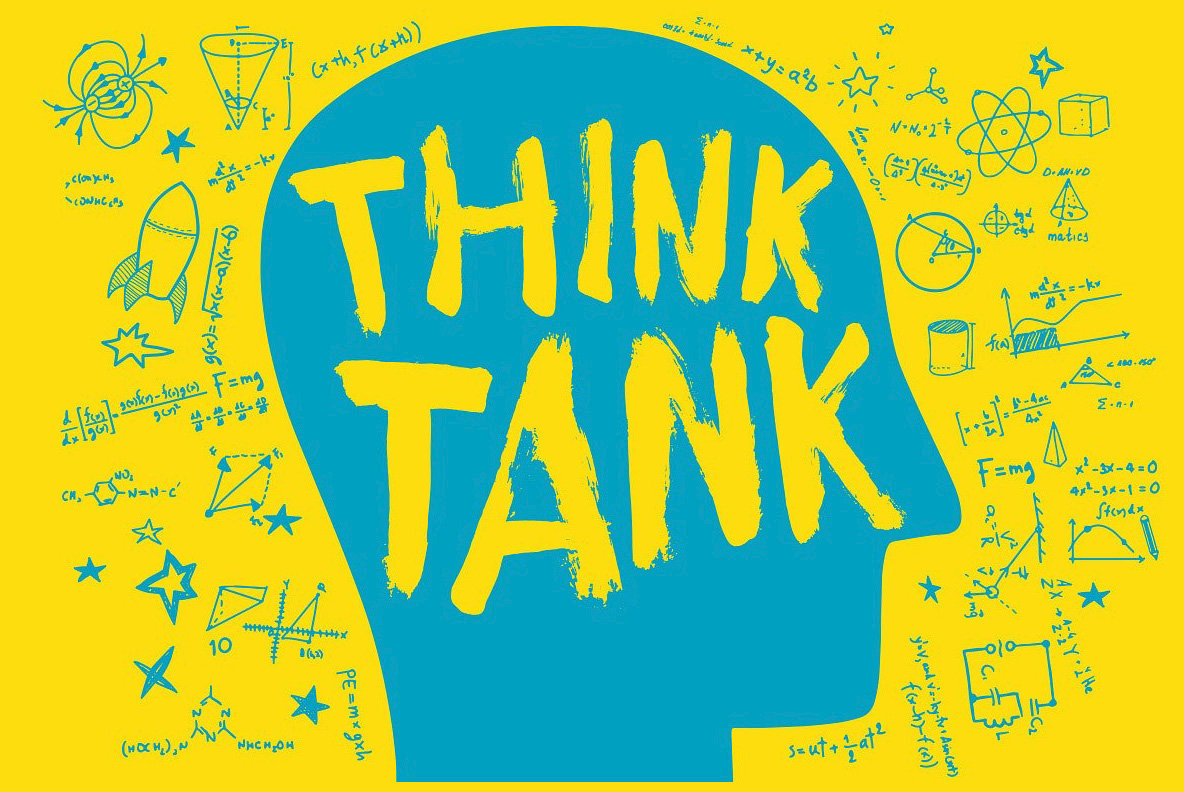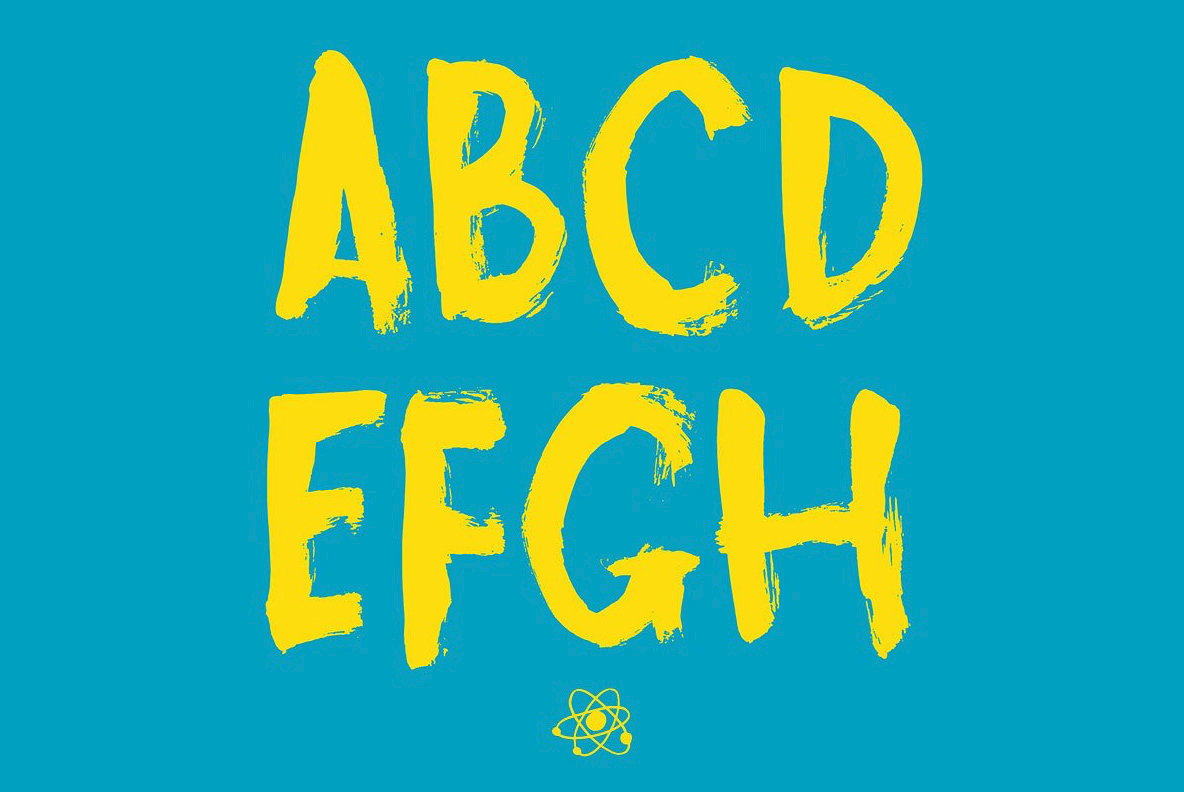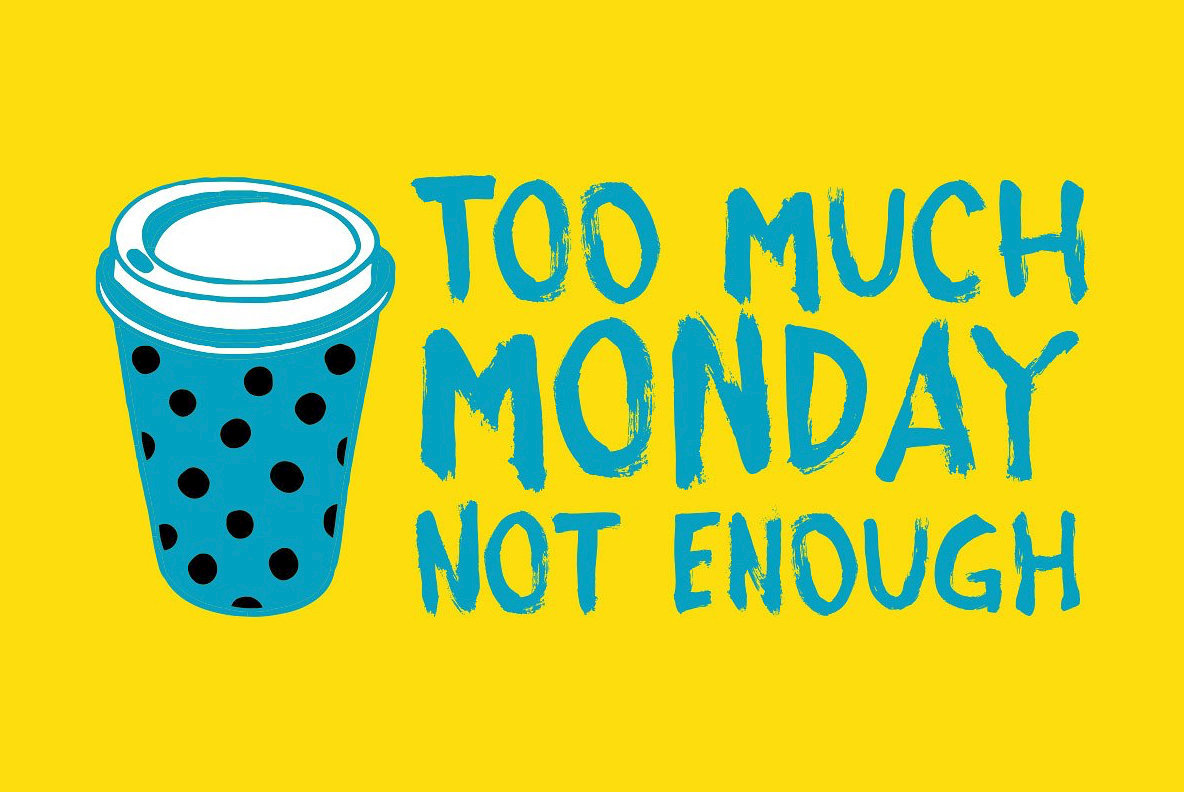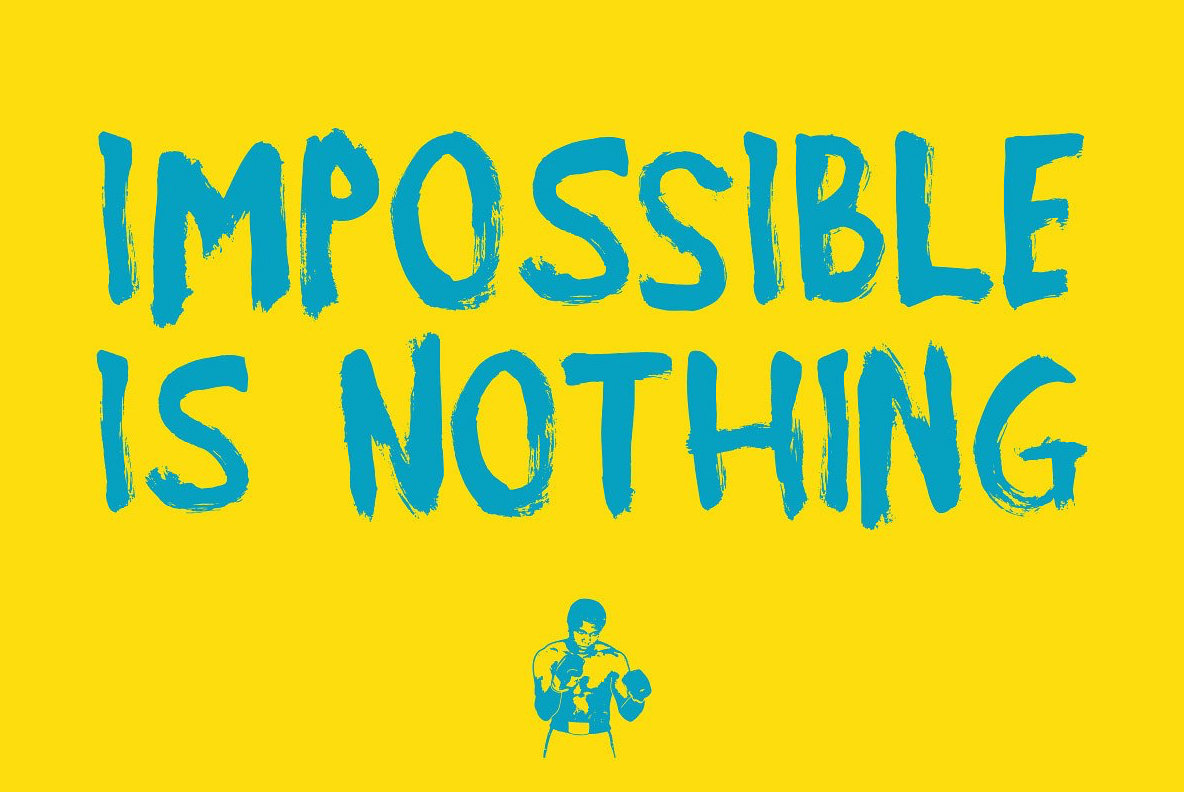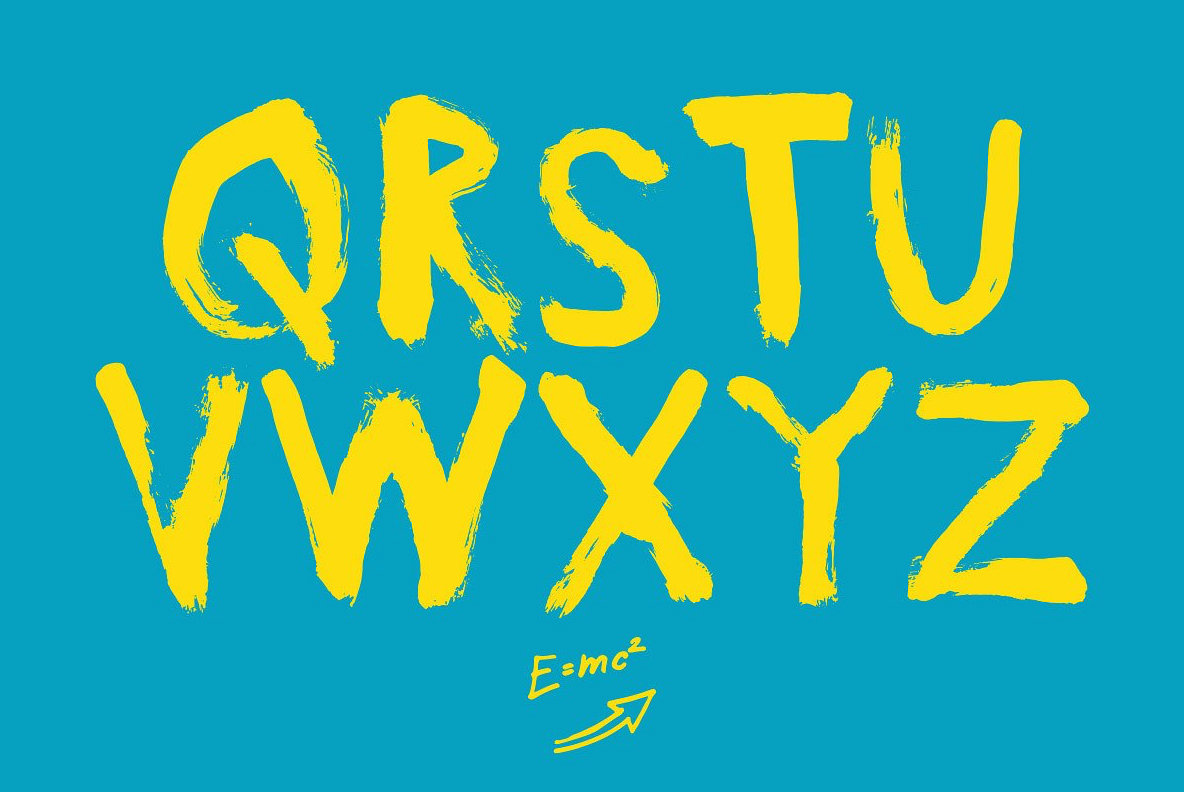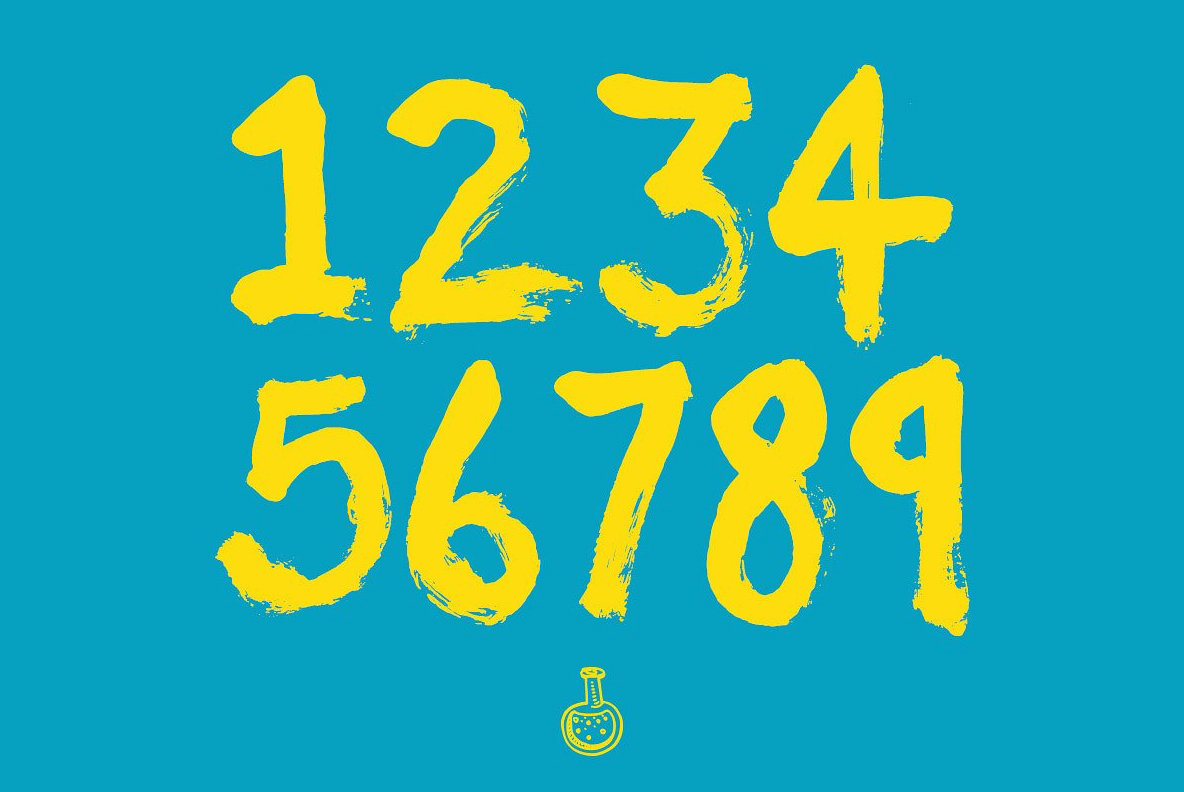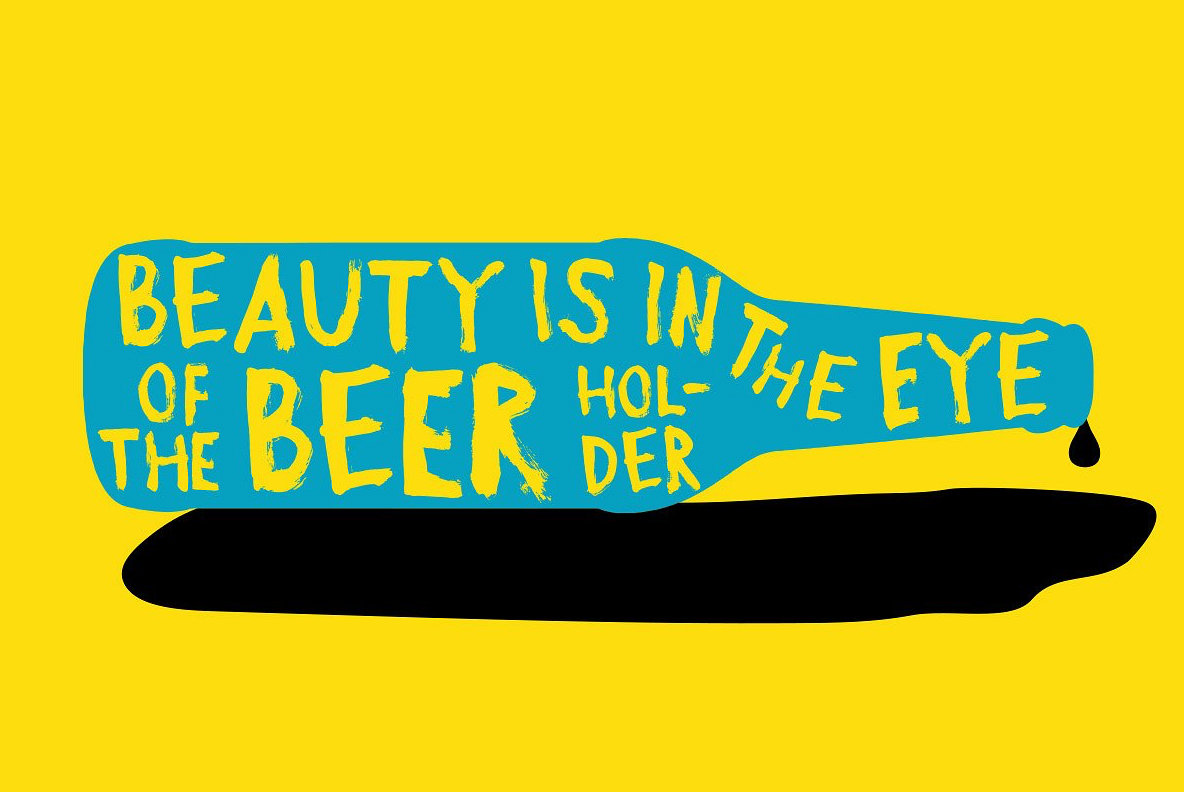
Atomic Dustbin Font
Atomic Dustbin a grungy handmade brush display font. It was created with a thick dry brush, black ink and paper. I was trying to get that dirty brush stroke look and feel, with all the lovely detail that can produce.
I named the font after the 90's indie band Neds Atomic Dustbin. Who got the name from an episode of the Goon show.
It's a unicase font so it has no lowercase glyphs. That makes it perfect for bold and heavy headlines. It's messy so it's going to give you that graffiti/urban style.
Opentype Alternatives
Atomic Dustbin has 3 alternatives for each letter and 2 for each number and a few extra punctuation marks.
Using OpenType contextual alternatives that cycle through the glyphs and to give you a more random looking typeface.